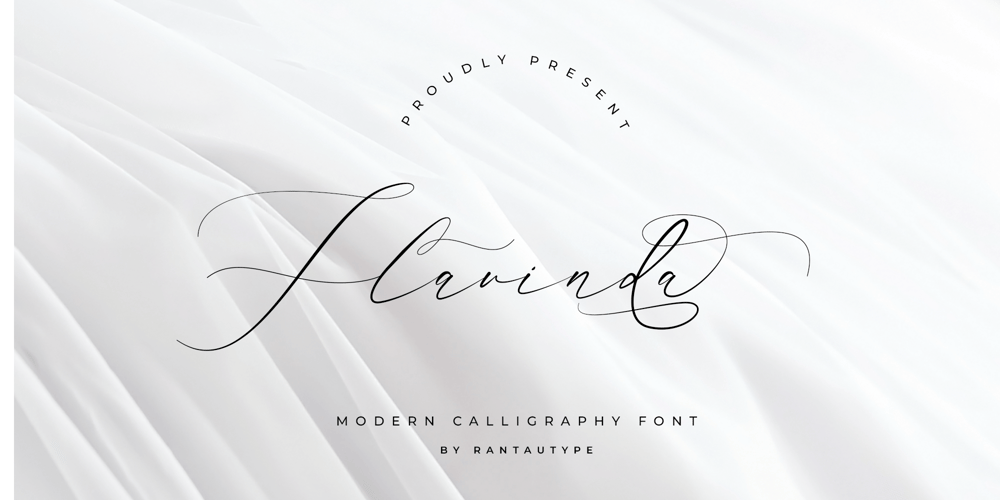
Flavinda Font Family was designed by Yudi Pratama Chandra and published by RantauType. Flavinda contains 1 styles and family package options. Flavinda is calligraphy font it’s looks modern, feminine, girly, catchy and easy to use. Flavinda is the great choice for watermark on wedding organizer, signature or signature logo design, quotes, album cover, business card and many other design project.Flavinda is here to make your work or your business to high level!!!Features: Numberial and Functional alternate and ligature Lowercase begin swash and Lowercase end swashes Uppercase Begin swash Works on PC & Mac Simple installations Accessible in Adobe Illustrator, Adobe Photoshop, Adobe InDesign, even work on Microsoft Word. Fonts include Multilingual Support for: Afrikaans, Albanian, Asu, Basque, Bemba, Bena, Breton, Chiga, Cornish, Dutch, English, Estonian, Filipino, Finnish, Friulian, Galician, Gusii, Indonesian, Irish, Italian, Kabuverdianu, Kalenjin, Kinyarwanda, Luo, Luxembourgish, Luyia, Machame, Makhuwa-Meetto, Makonde, Malagasy, Manx, Morisyen, North, Ndebele, Nyankole, Oromo, Portuguese, Quechua, Romansh, Rombo, Rundi, Rwa, Samburu, Sango, Sangu, Scottish, Gaelic, Sena, Shambala, Shona, Soga, Somali, Spanish, Swahili, Swedish, Swiss, German.Thank you for your purchase!Hope you enjoy with our font!